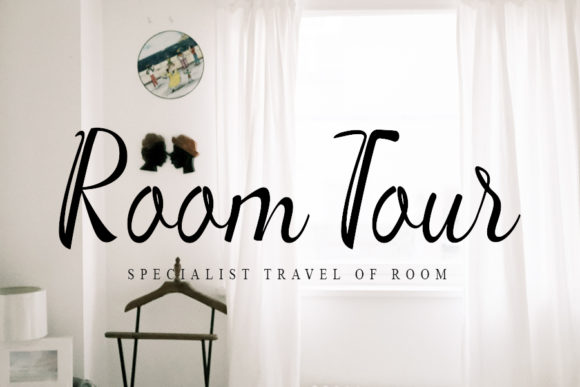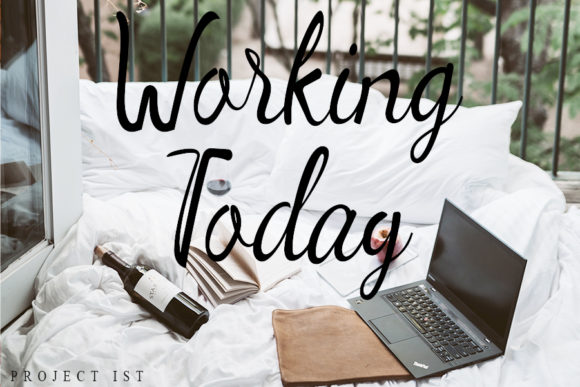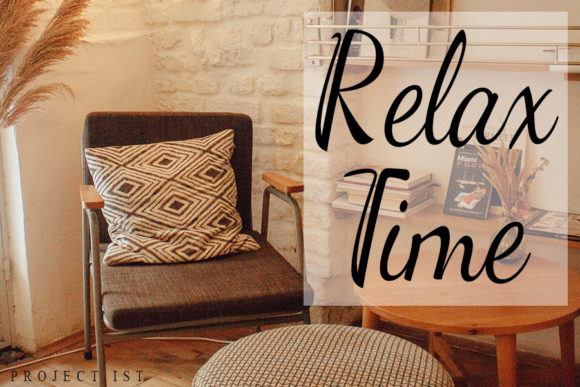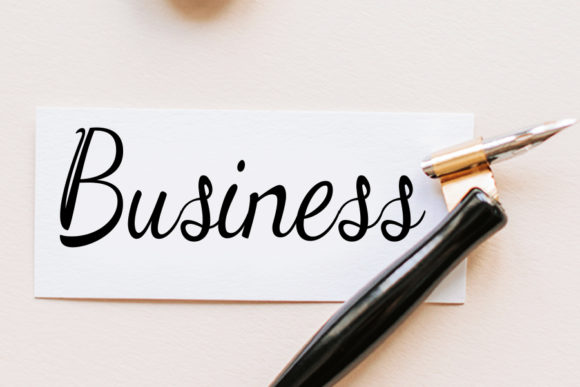
Anindilla Font
About Anindilla Font
Anindilla is a delicate and cursive handwritten font. This gentle font will look gorgeous on a variety of design ideas. It will add a joyful and dreamy touch to each of your projects!